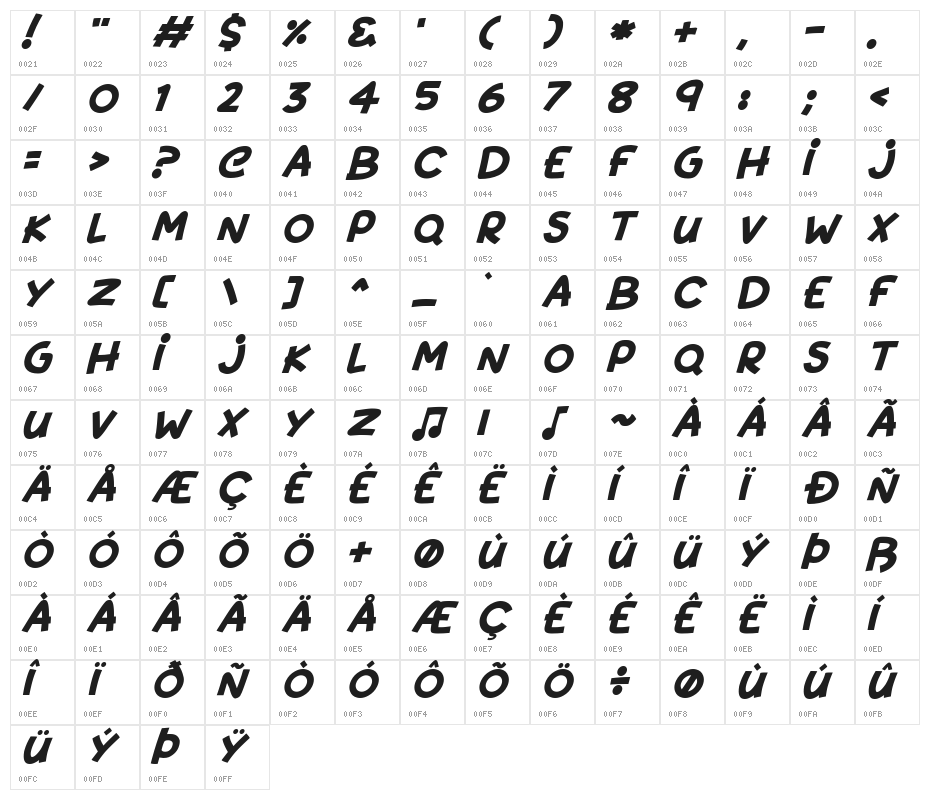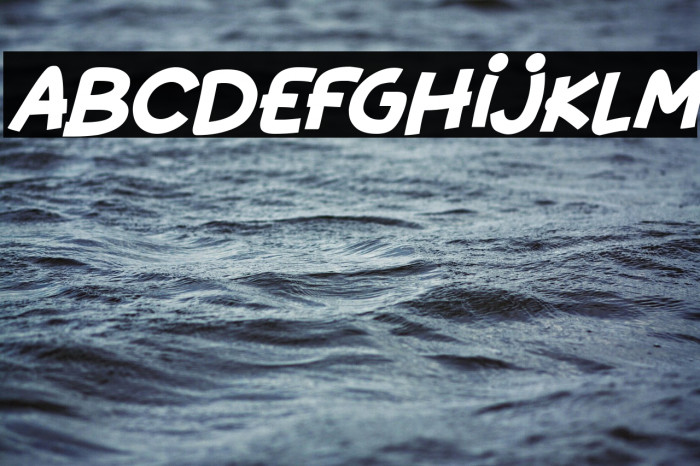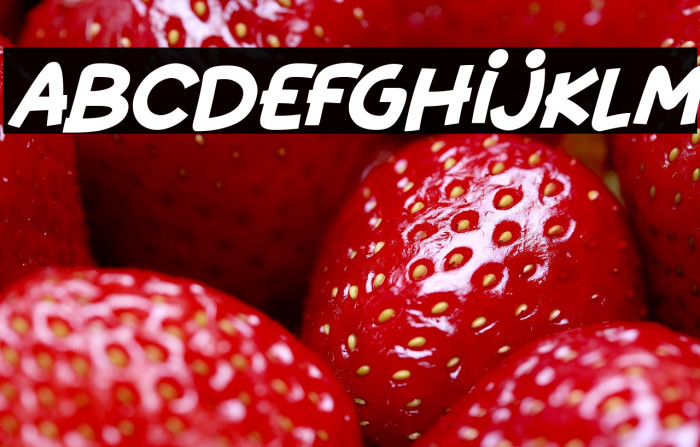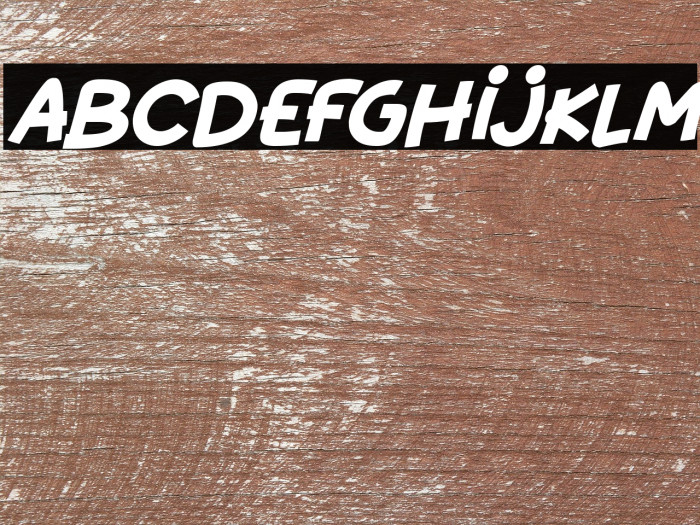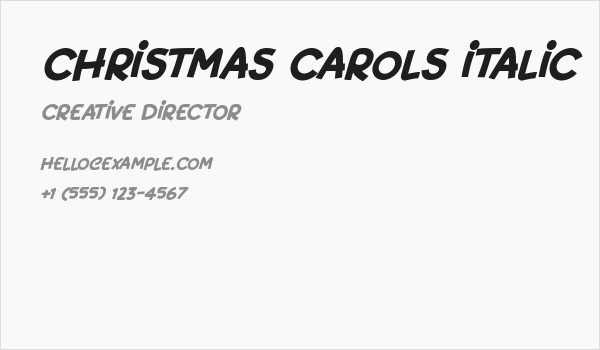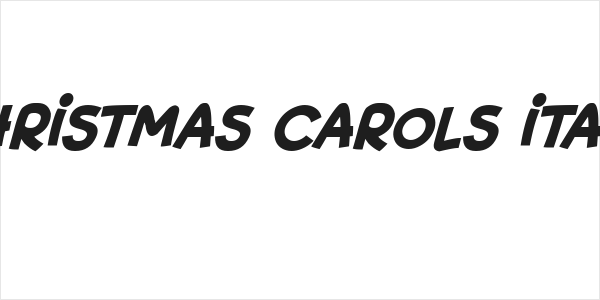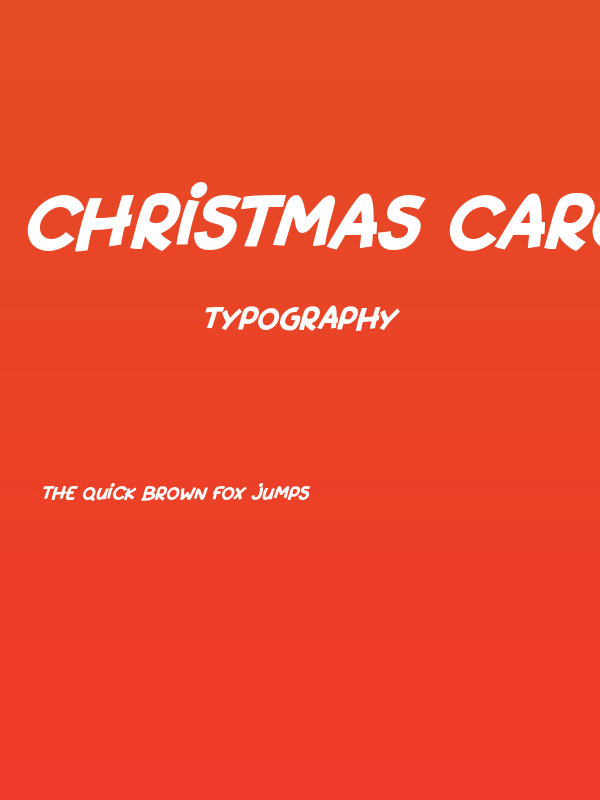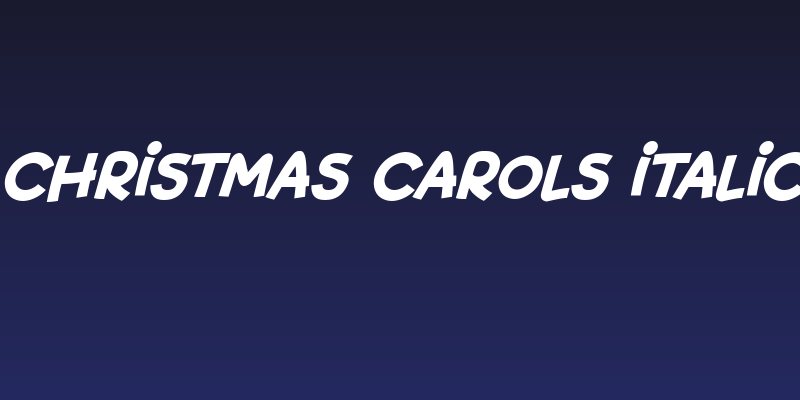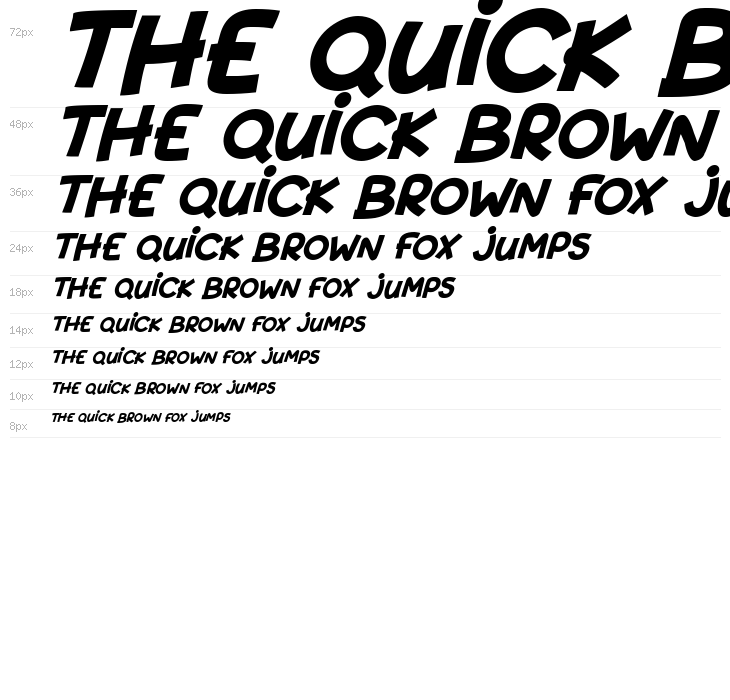
Christmas Carols Italic Font
Christmas Carols Italic Description
This font features a playful and dynamic style with a strong italic slant, giving it a sense of motion and energy. The characters are bold and rounded, with a smooth flow that enhances readability while maintaining a decorative flair. The uppercase and lowercase letters are consistent in style, with a slight variation in size and shape that adds to the font's charm. The numerals are equally bold and maintain the same playful aesthetic. Special characters are well-integrated, ensuring versatility in various design contexts.
| Use Case | Headlines, Logos, Greeting Cards |
| Proposed Projects | Ideal for holiday-themed designs, greeting cards, festive banners, and playful branding projects. |